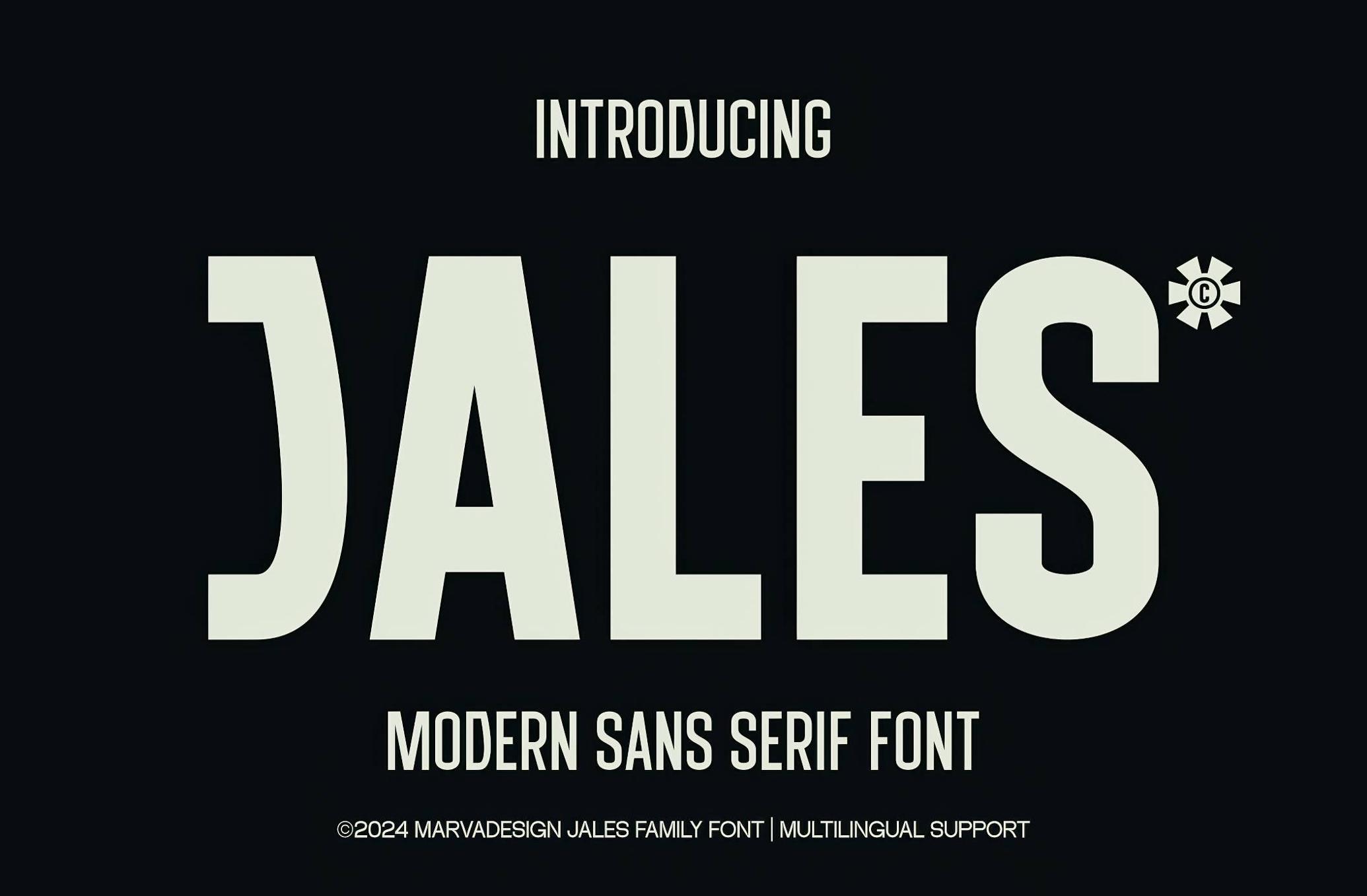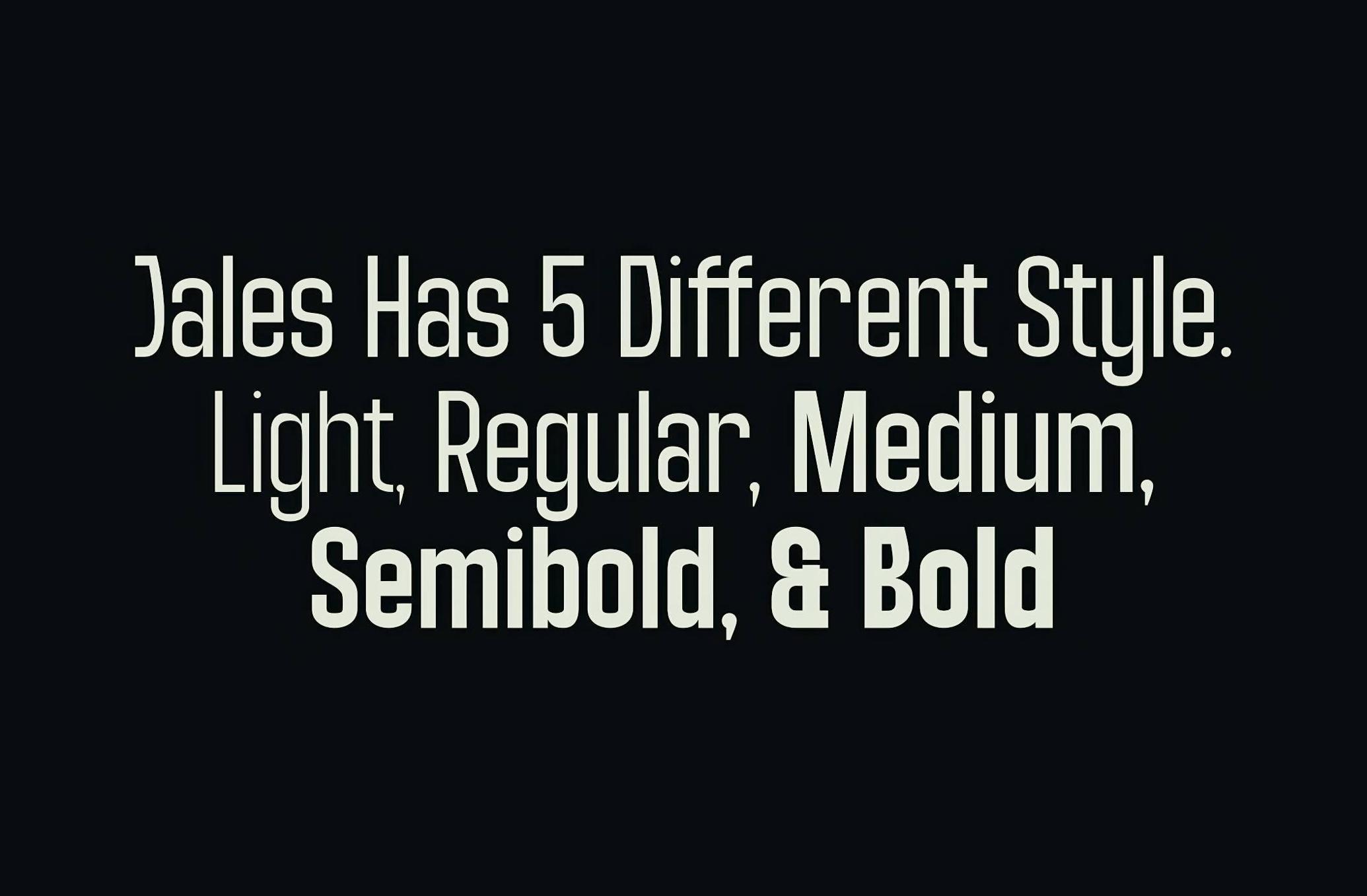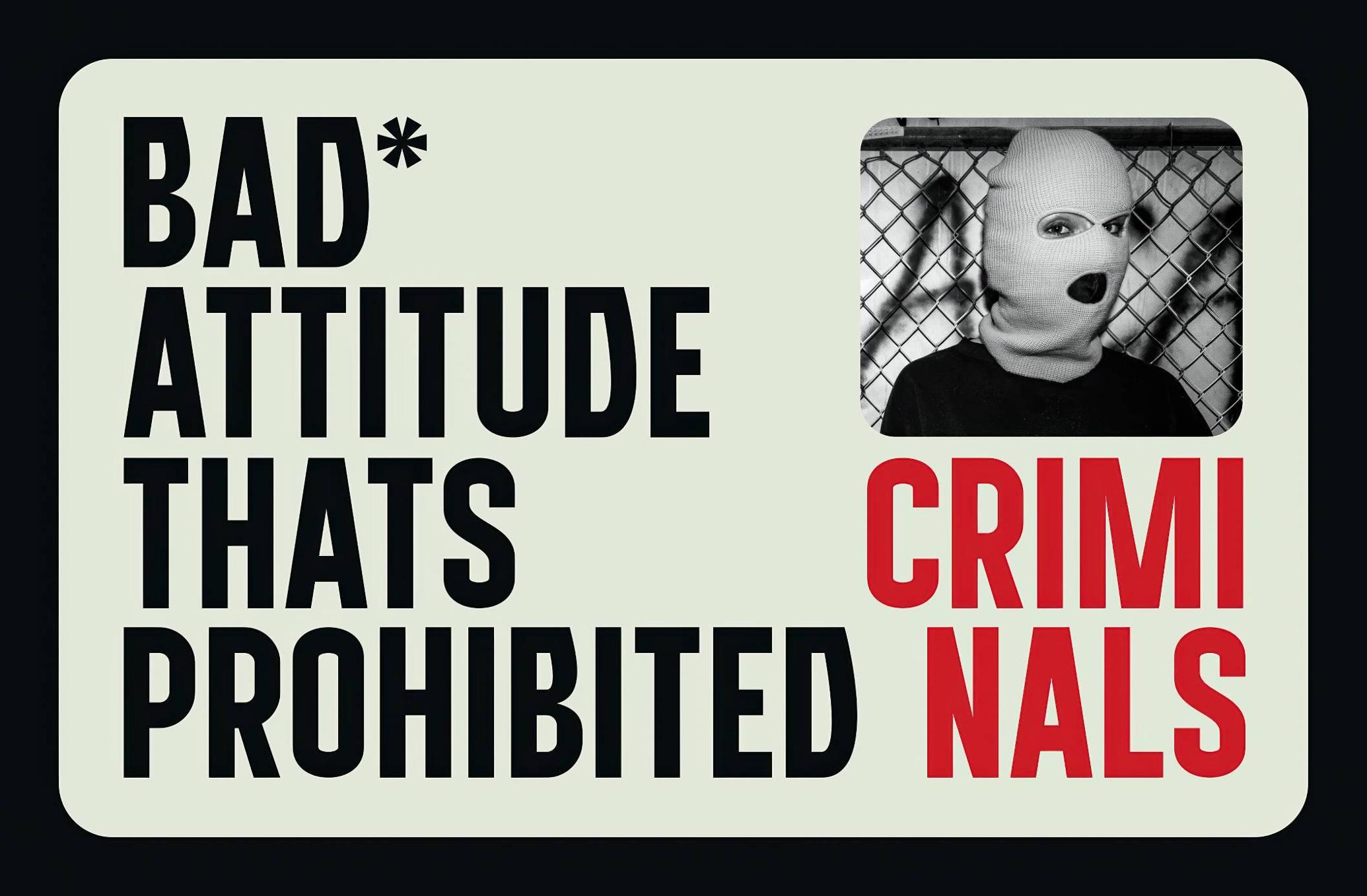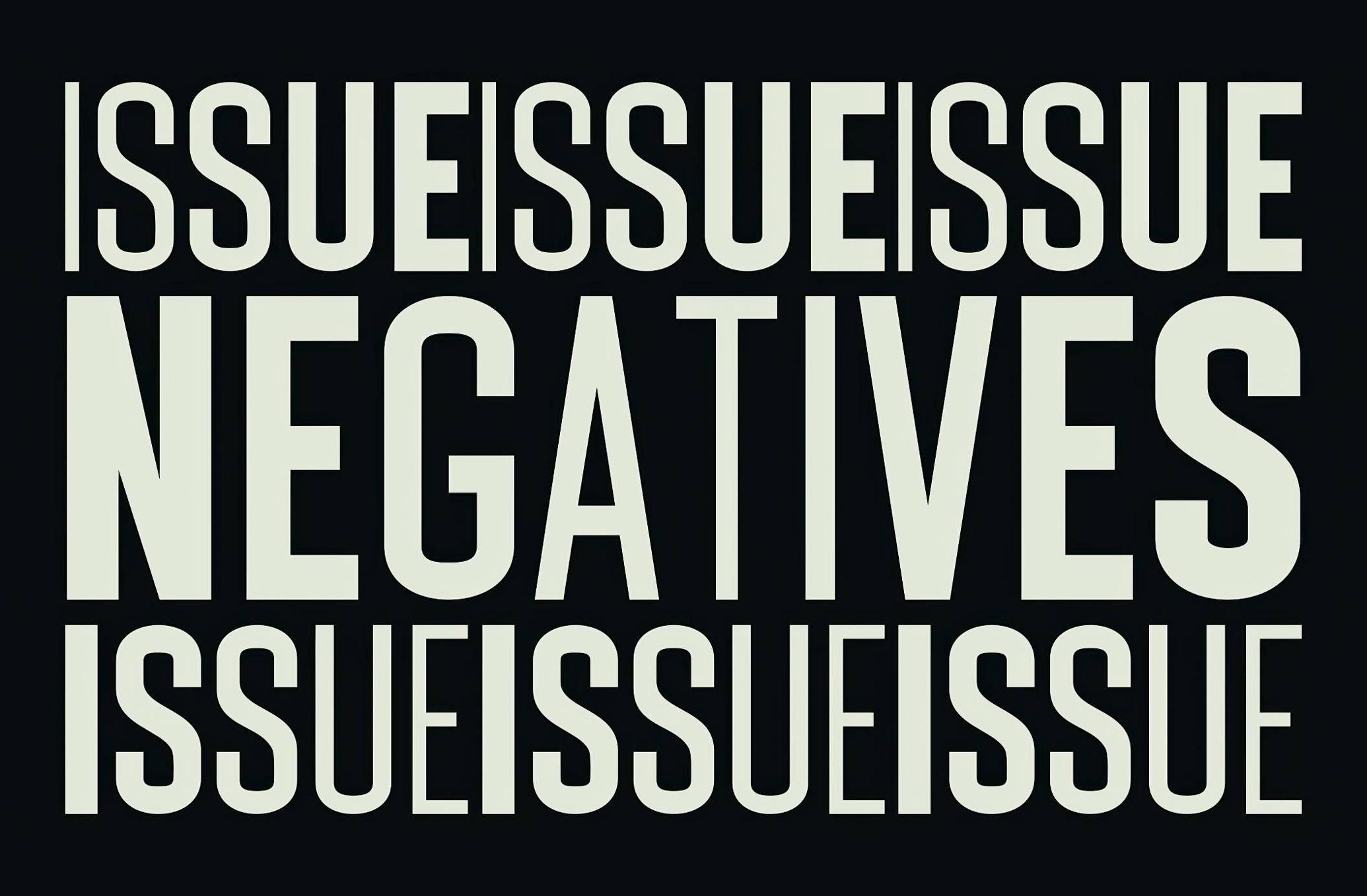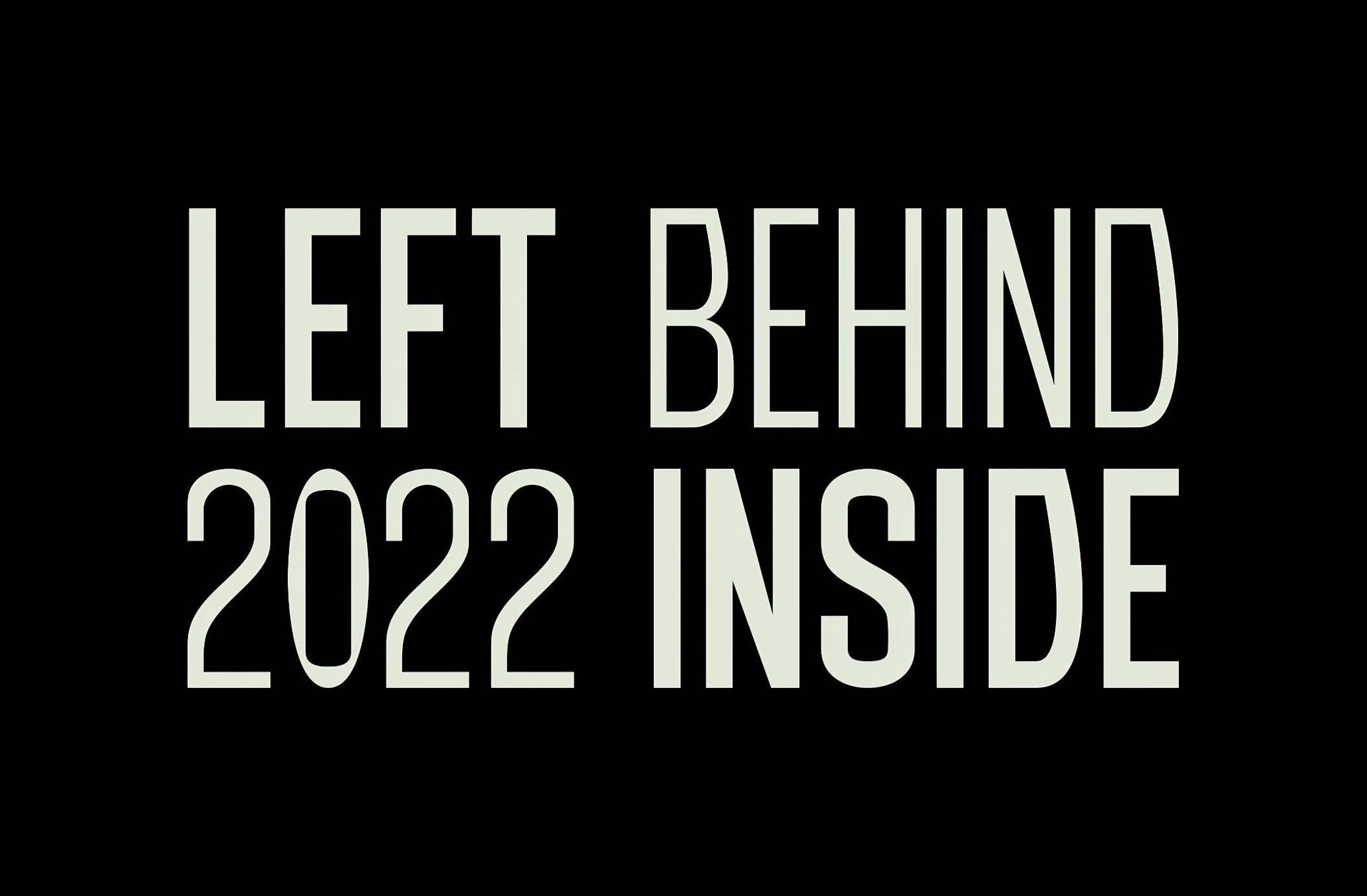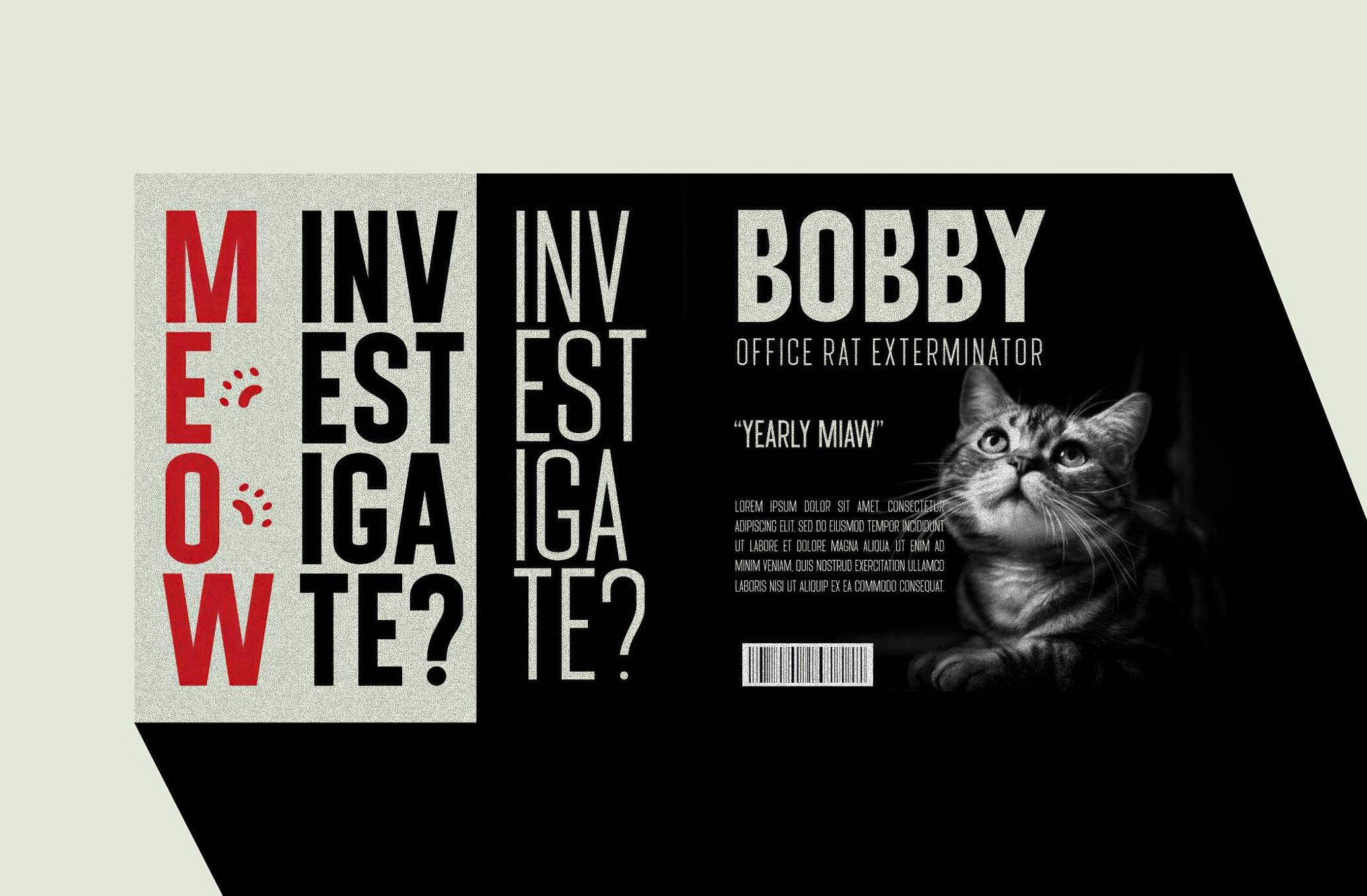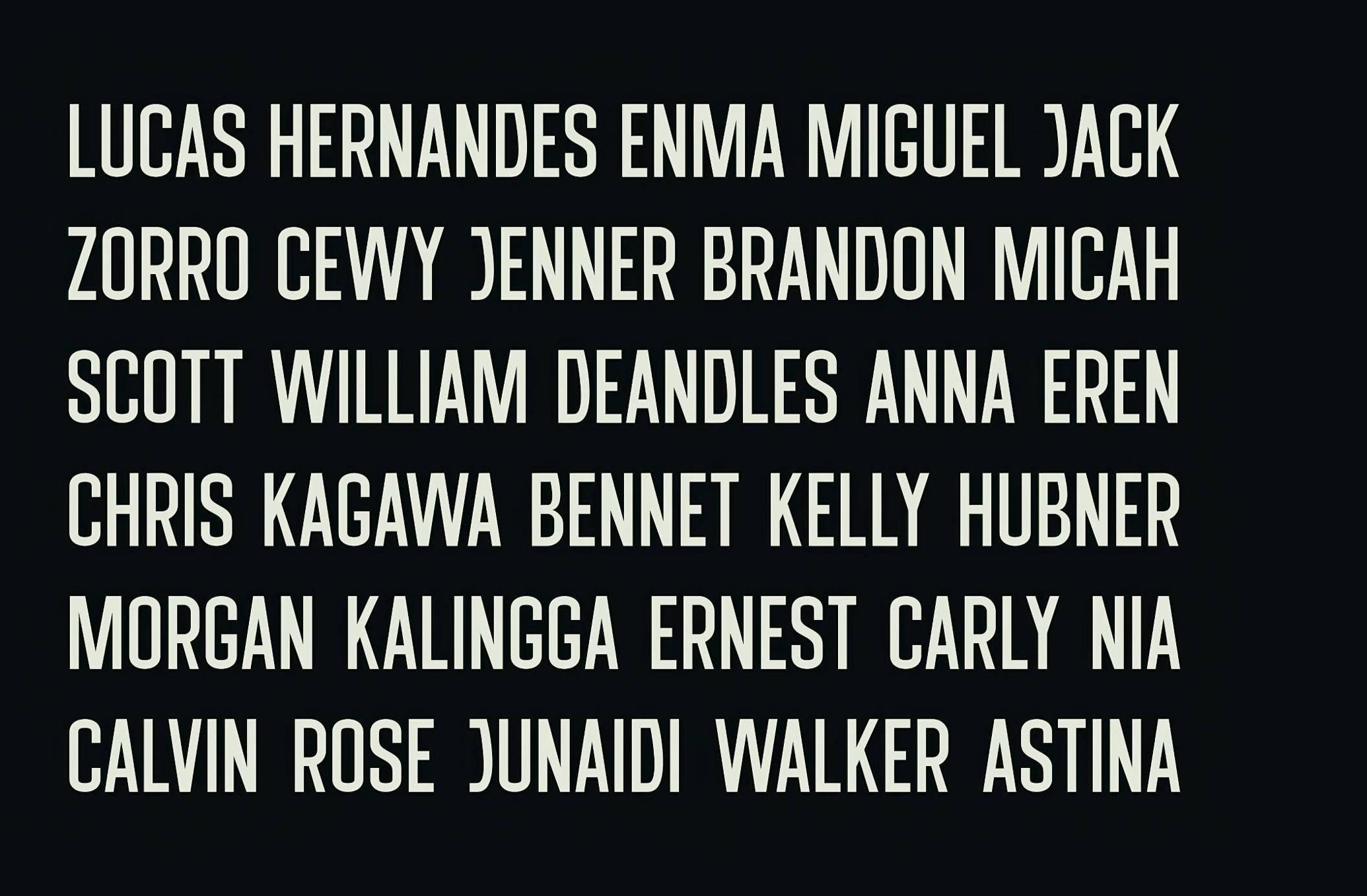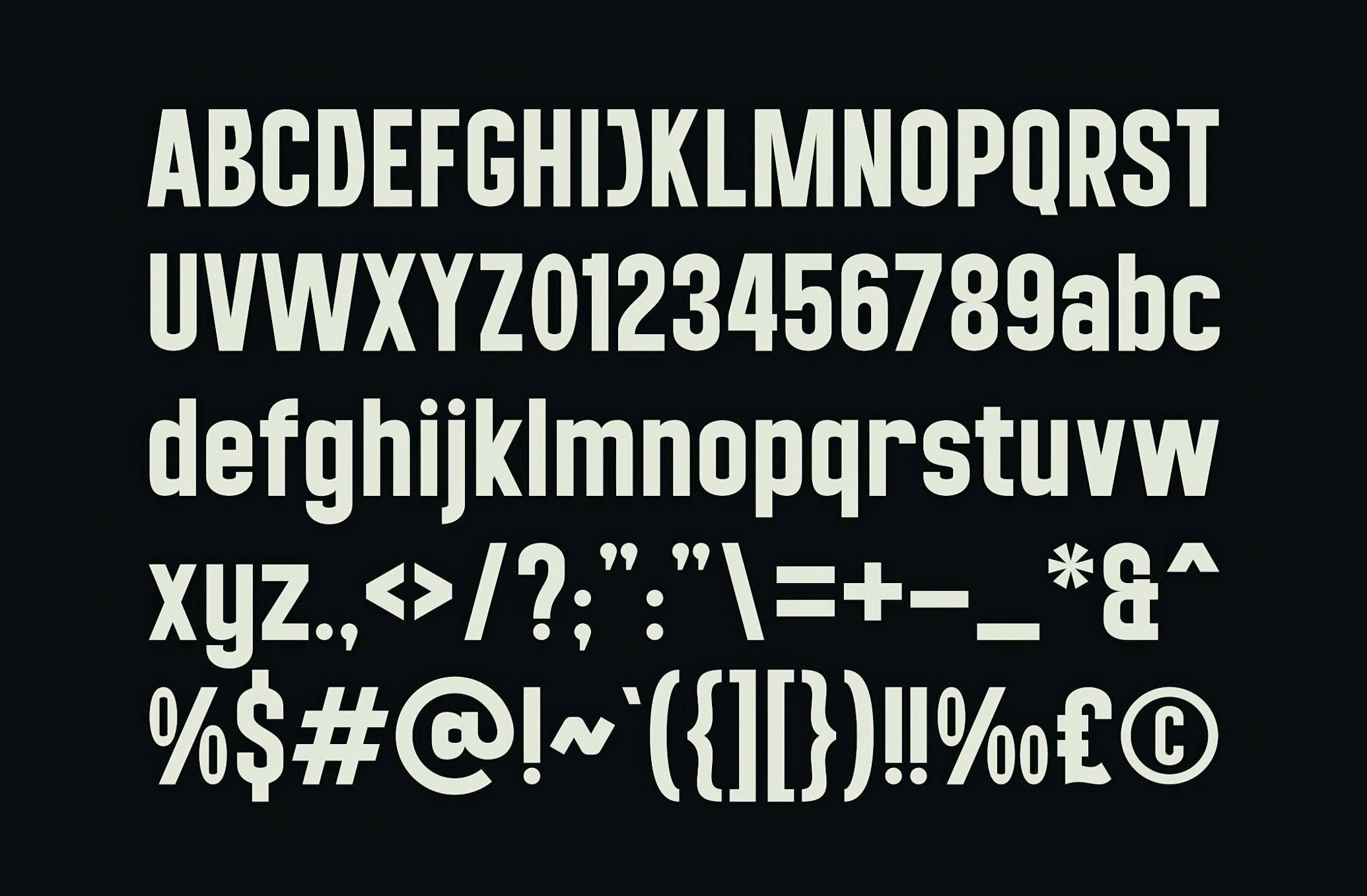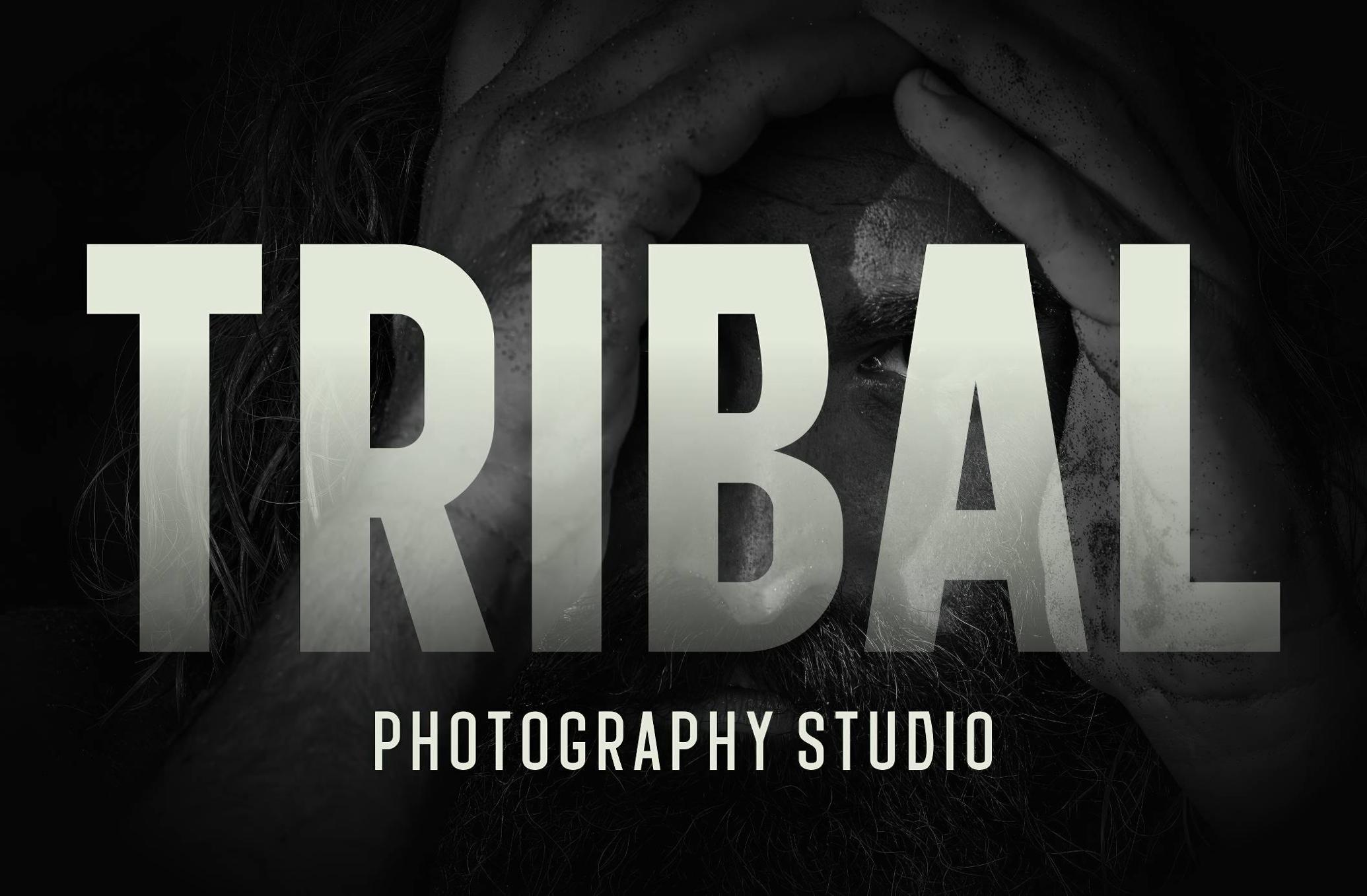
JALES Light
JALES Regular
JALES Medium
JALES Semibold
JALES Bold
JALES doesn’t waste space or time. This modern condensed sans was built for precision: tight tracking, tall proportions, and a silhouette that speaks in bold, businesslike terms. With ten weights ranging from Light to Bold, it adapts effortlessly from identity systems and editorial layouts to pitch decks and product packaging. The type delivers maximum clarity in minimal space, ideal for brands and institutions that value structure, rhythm, and visual economy. Available in OTF, TTF, WOFF, and WOFF2 formats with multilingual support and full upper–lowercase sets.